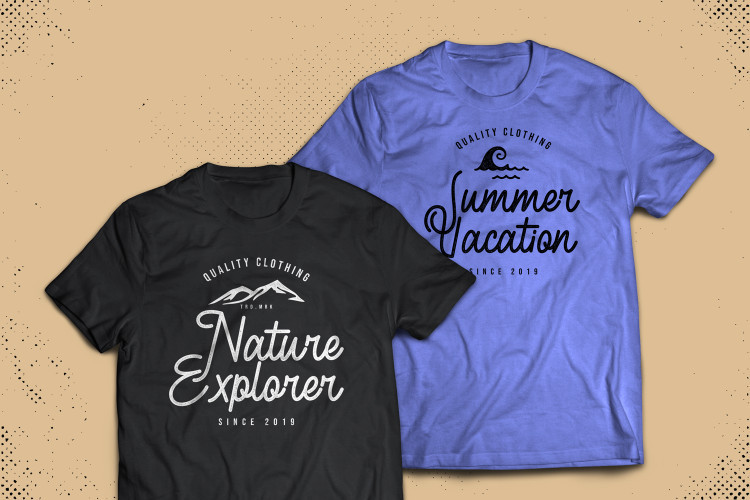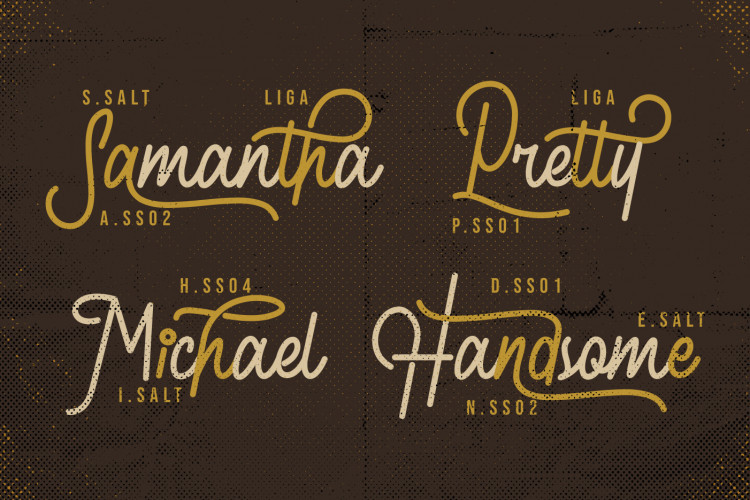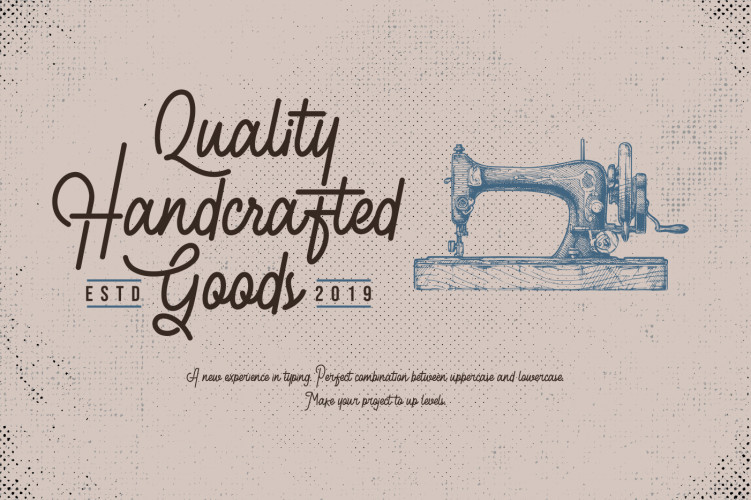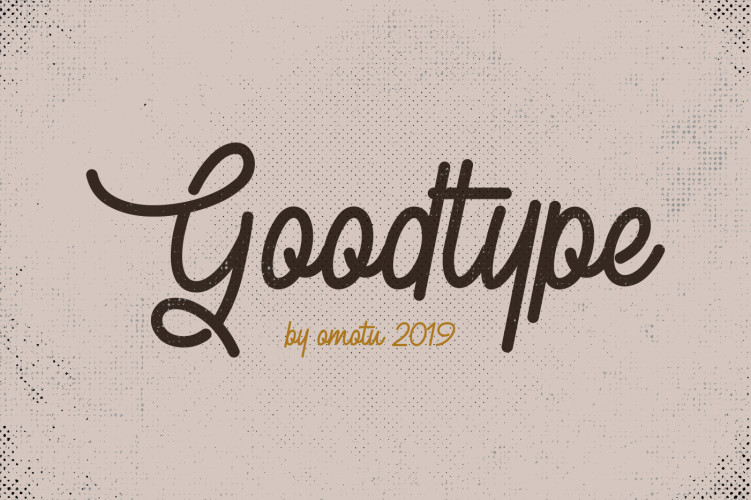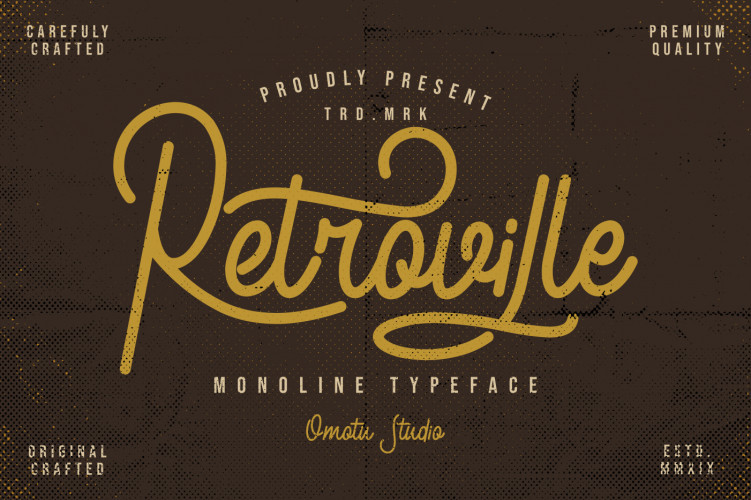
Retroville Script Font
This is a new vintage script font, a bold script that will stands out from the crowd! that are combined into pretty package. You will see this combination more in badges logos. Introducing Retroville Font. Retroville Script Font, monoline typeface with semi signature style. This monoline typeface will bring you to the new experience in typing. Perfect for logotype, headline, apparel, quotes, poster with vintage and exclusive feels.